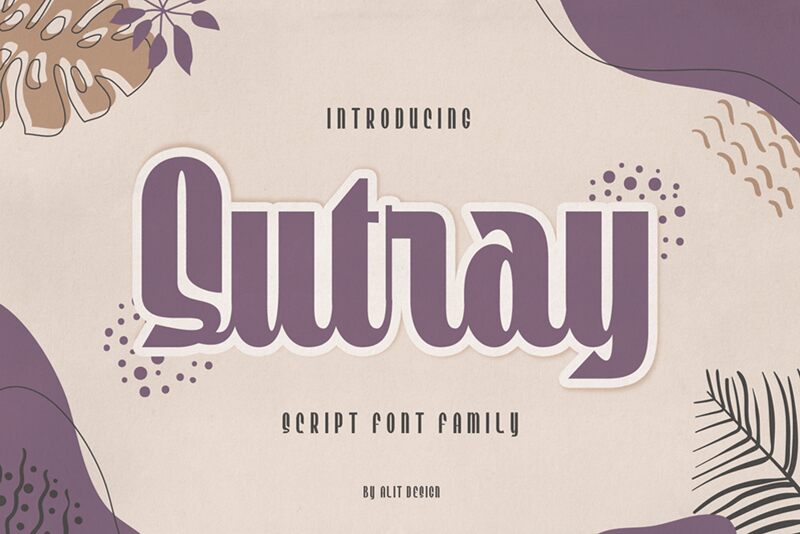
Sutra Regular
Sutra, a script typeface designed by Alit Design, is perfect for projects that require a touch of retro charm.
With its unique and cool style, Sutra adds an attractive element to poster designs, logotypes, text headers, and magazine covers. The bold weight and extra-condensed width of Sutra make it stand out among other fonts in its category. With 7 families ranging from Thin to Bold, this typeface offers versatility to both designers and non-designers alike. Whether you're creating a vintage-inspired logo or designing a trendy magazine layout, Sutra Typeface has the perfect option to suit your needs.